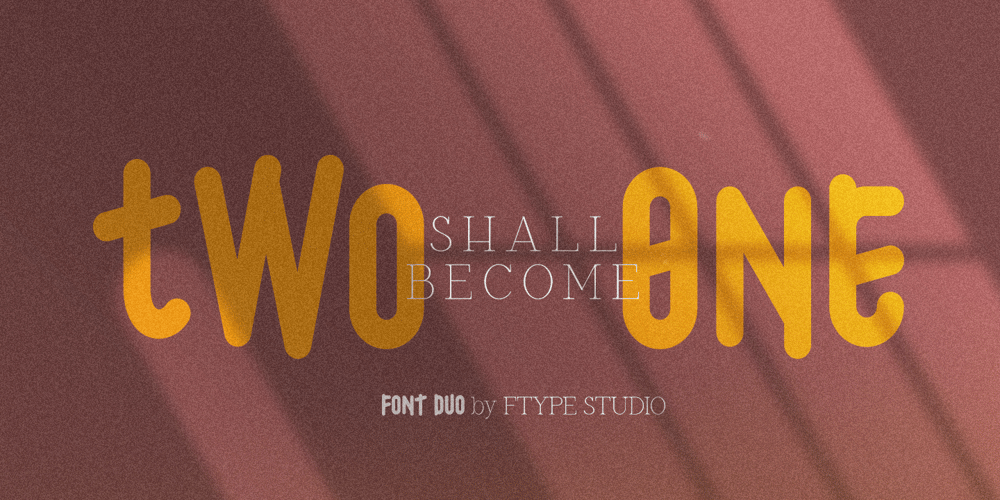
DuaSatu
DuaSatu font
DuaSatu Font Family was designed by Wahyu Rahmawan and published by Factory738. DuaSatu contains 2 styles and family package options. A casual and stylish serif and handwritten typeface called TwoOne is now available! Along with numbers, punctuation, and multilingual letters, it also contains distinct lowercase and uppercase letters, seems really at work among the vintage designs, logos, and brands. The Alternate and Ligature typefaces will be useful for anything you can think of! 2 Styles Basic Latin A-Z and a-z Numerals & Punctuation Stylistic Ligatures Multilingual Support for ä ö ü Ä Ö Ü … OTF file format Free updates and feature additions Thanks for looking, and I hope you enjoy it.